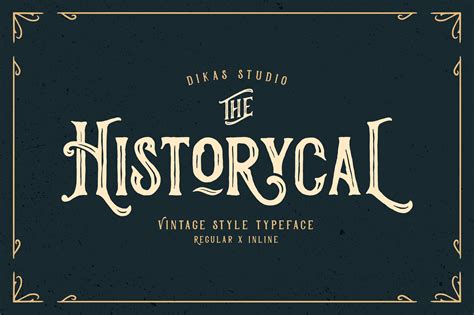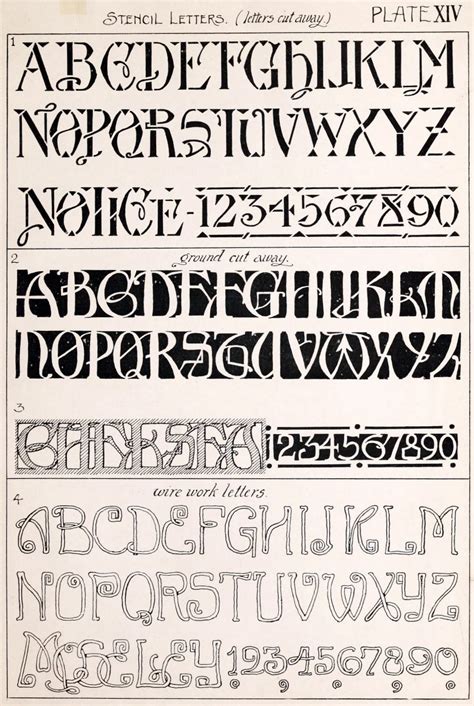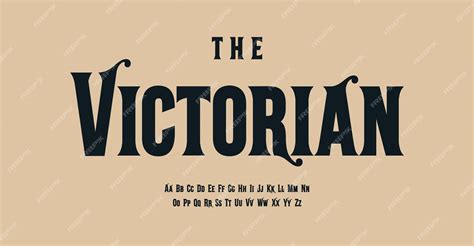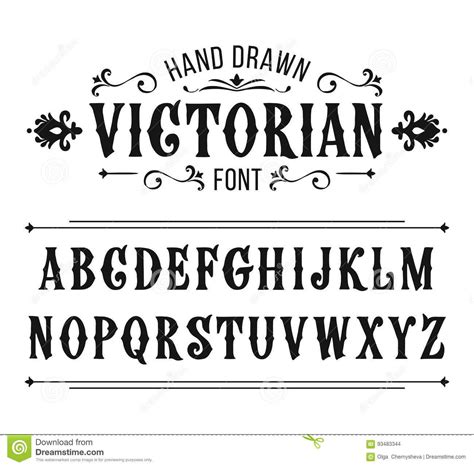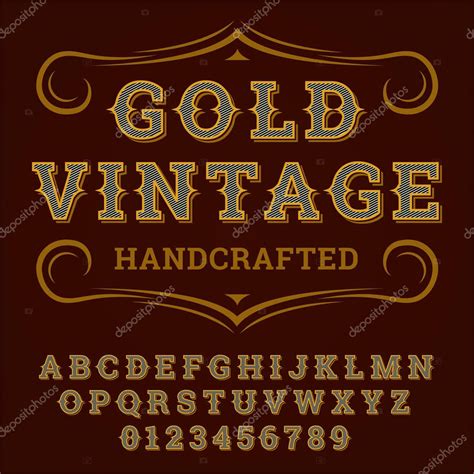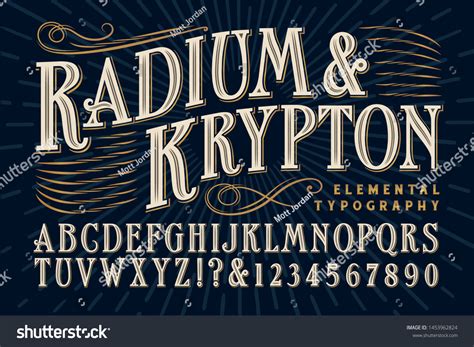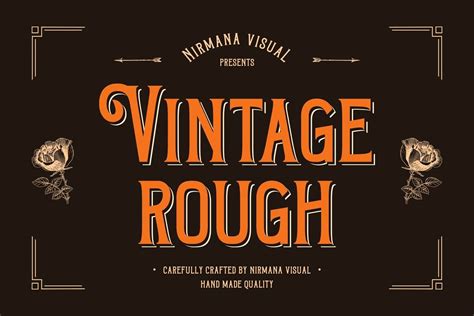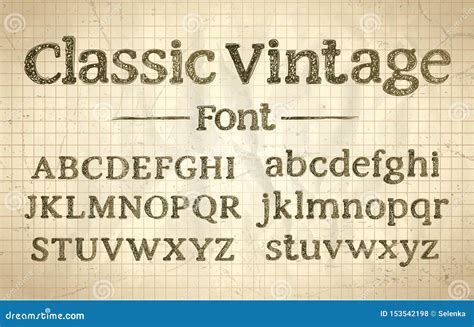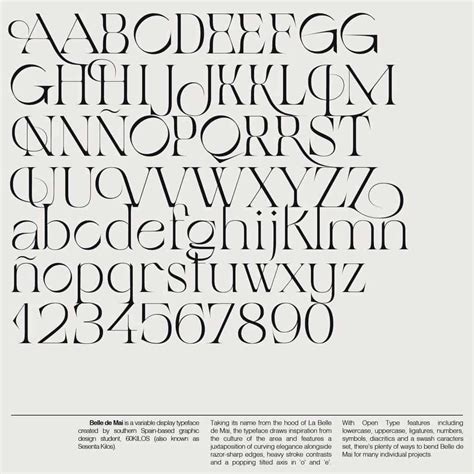
In the digital age, where sleek and modern fonts dominate the design landscape, there's a timeless charm that comes with using an old fashioned font. These fonts, often inspired by the typography of the past, bring a sense of nostalgia and elegance to any design project. Whether you're creating a vintage-inspired logo, designing a retro-themed website, or crafting an invitation with a classic touch, an old fashioned font can add a unique and memorable element to your work.
Understanding Old Fashioned Fonts
Old fashioned fonts are characterized by their classic and often ornate designs. They are typically inspired by the typography of the 18th and 19th centuries, a time when hand-lettering and calligraphy were highly valued. These fonts often feature intricate details, such as serifs, swashes, and flourishes, which give them a distinctive and elegant appearance.
There are several types of old fashioned fonts, each with its own unique characteristics:
- Serif Fonts: These fonts have small lines or strokes, known as serifs, at the ends of the characters. Serif fonts are often associated with tradition and formality, making them a popular choice for old fashioned designs.
- Script Fonts: These fonts mimic the flow and rhythm of handwriting, often featuring connected letters and elegant curves. Script fonts are ideal for adding a personal and romantic touch to designs.
- Slab Serif Fonts: These fonts have thick, block-like serifs and are known for their bold and sturdy appearance. Slab serif fonts are often used in headlines and display text to create a strong visual impact.
- Display Fonts: These fonts are designed for large sizes and are often used in headlines, posters, and other display purposes. Display fonts can be highly decorative and are perfect for adding a dramatic flair to designs.
Choosing the Right Old Fashioned Font
Selecting the right old fashioned font for your project can significantly enhance its visual appeal and overall impact. Here are some factors to consider when choosing an old fashioned font:
- Purpose: Consider the purpose of your design. For example, if you're creating a formal invitation, a serif font might be more appropriate. For a casual event, a script font could add a playful touch.
- Audience: Think about your target audience. Different fonts can evoke different emotions and associations, so choose a font that resonates with your audience.
- Legibility: Ensure that the font is easy to read, especially if it will be used in body text. Some old fashioned fonts, while beautiful, can be difficult to read at smaller sizes.
- Style: Consider the overall style of your design. The font should complement the other design elements, such as colors, images, and layout.
Popular Old Fashioned Fonts
There are numerous old fashioned fonts available, each with its own unique style and characteristics. Here are some popular options that you might consider:
| Font Name | Style | Use Cases |
|---|---|---|
| Goudy Old Style | Serif | Books, magazines, formal invitations |
| Lobster | Script | Wedding invitations, greeting cards, logos |
| Clarendon | Slab Serif | Headlines, posters, display text |
| Great Vibes | Script | Wedding invitations, logos, branding |
| Playfair Display | Serif | Headlines, magazines, formal documents |
These fonts are just a few examples of the many old fashioned fonts available. Each font has its own unique characteristics and can be used in a variety of design projects.
Incorporating Old Fashioned Fonts into Your Design
Once you've chosen the perfect old fashioned font for your project, the next step is to incorporate it into your design. Here are some tips to help you make the most of your chosen font:
- Pairing Fonts: If you're using an old fashioned font for headlines or display text, consider pairing it with a more modern font for body text. This can create a balanced and visually appealing design.
- Color Scheme: Choose a color scheme that complements your font. For example, a classic serif font might look best with muted, earthy tones, while a script font could pair well with soft, pastel colors.
- Layout: Pay attention to the layout of your design. Ensure that the font is used in a way that enhances the overall composition and doesn't overwhelm other design elements.
- Consistency: Use the font consistently throughout your design. This helps to create a cohesive and professional look.
By following these tips, you can effectively incorporate an old fashioned font into your design and create a visually stunning and memorable project.
💡 Note: When using old fashioned fonts, it's important to consider the context and audience of your design. While these fonts can add a touch of elegance and nostalgia, they may not be suitable for all types of projects. Always test your design with a sample audience to ensure that the font is well-received.
Old Fashioned Fonts in Digital Design